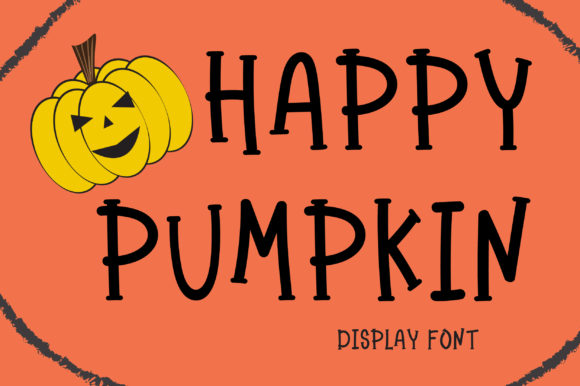
Behold, the delightful Happy Pumpkin Font – a charming display font poised to ignite your creativity and transform your designs into captivating masterpieces! Crafted with meticulous attention to detail by the talented PearlyDaisy, this enchanting font exudes a playful and quirky charm that instantly elevates any project it adorns. Its eye-catching curves and cheerful characters possess an uncanny ability to capture hearts, making it an ideal choice for crafting logos, branding materials, and playful designs.
With Happy Pumpkin Font by your side, the possibilities are endless. Let your imagination run wild as you create eye-catching blog logos that radiate warmth and personality. Harness its whimsical nature to design invitations, greeting cards, and social media posts that radiate joy and leave a lasting impression. The Happy Pumpkin Font is a delightful addition to your design toolbox, ready to unleash a wave of creativity that will captivate and inspire.
Step into a whimsical realm where imagination knows no bounds and creativity blossoms with each stroke. Embrace the playful spirit of Happy Pumpkin Font and embark on a journey of self-expression. Whether you're a seasoned designer or just starting your creative journey, this enchanting font will guide you towards remarkable designs that leave a lasting impact. Dive into the world of Happy Pumpkin Font today and unleash the magic within!